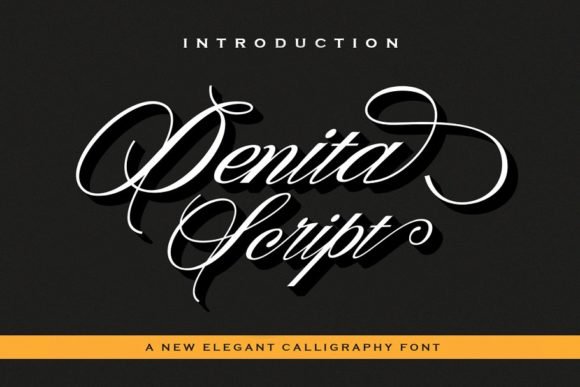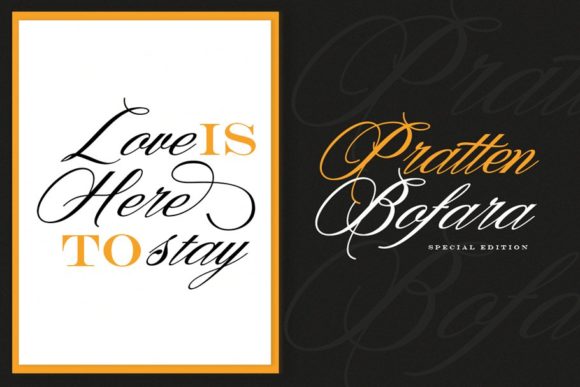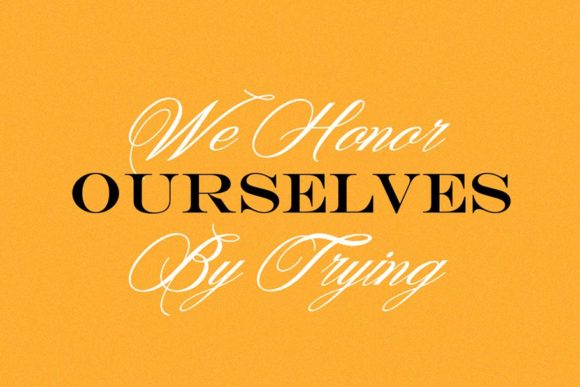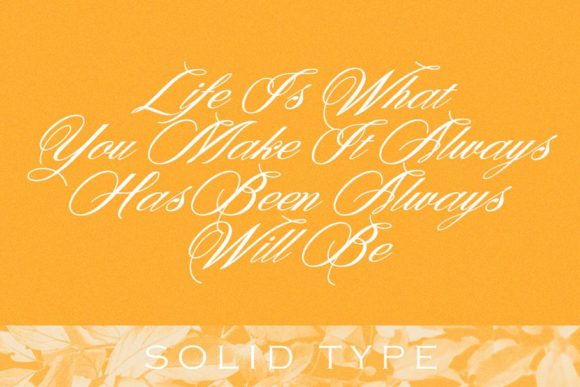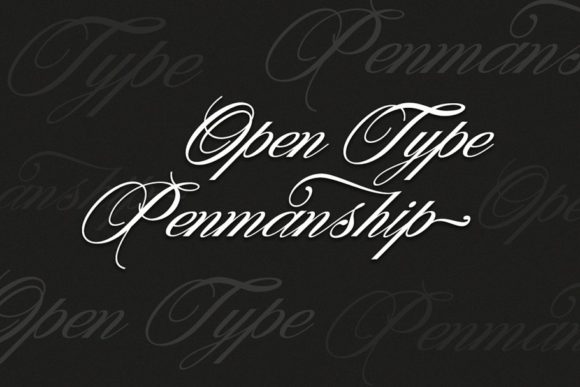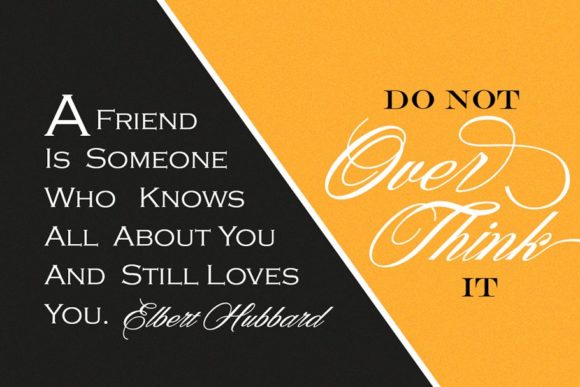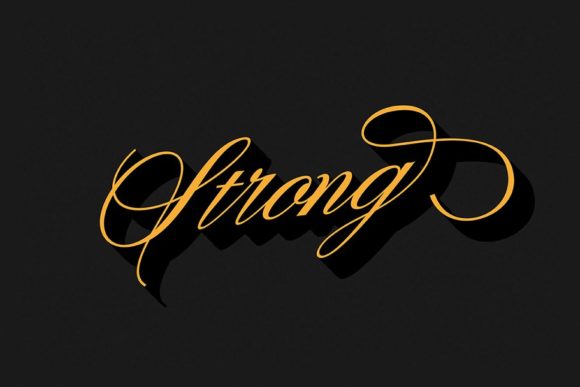
Adding a Touch of Elegance with the Denita Font
Have you ever stared at a blank canvas, struggling to bring your creative vision to life? You’re not alone. As designers, we’ve all been there – searching for the perfect font to set the tone for our project. It’s in these moments of uncertainty that we turn to trusted fonts that have proven themselves time and time again.
One such font is Denita, a beautifully crafted script that adds a sophisticated touch to any creative idea. Its elegant design makes it perfect for invitations, wedding stationery, and other high-end projects where a touch of class is essential. For designers, Denita Font is a valuable asset in their toolkit, providing a reliable solution for creating visually stunning designs that leave a lasting impression.
Denita Font Key Features
- Unique Characteristics: Elegant, cursive script with a touch of sophistication and luxury
- Font Style: Calligraphy, Script
- Language Support: Multilingual support, including Latin-based languages and some Cyrillic scripts
Designer Review: Denita Font
When I first laid eyes on the Denita font, I was immediately drawn to its elegant and sophisticated vibe. ✨ The letterforms are beautifully crafted, with a subtle flair to the strokes that gives the font a sense of movement. I can see this font working beautifully in high-end branding, luxury packaging, or even fine dining menus.
One of the things that really stands out about Denita is its excellent legibility. ✨ The font is highly readable even at small sizes, making it perfect for body text or captions. The font also has a nice range of weights, from light to bold, which makes it easy to use in a variety of design scenarios.
However, I do have a few concerns about the font’s limitations. ⚠️ One thing that I noticed is that the font may not be as suitable for digital use, particularly on screens with low resolution. The font’s delicate details may get lost or distorted, which could impact its overall appearance.
- May not be suitable for digital use, particularly on screens with low resolution
- Font may appear too delicate or refined for certain design scenarios
Overall, I think the Denita font is a beautiful and versatile choice for designers looking to add a touch of sophistication to their work. While it may have some limitations, I believe it’s definitely worth considering for the right project.
Getting the Most Out of Denita Font
Here are some tips for getting the most out of Denita Font:
- Use it for titles and headings to add a touch of elegance.
- Pair it with a sans-serif font for a modern and clean look.
Denita Font is commonly used for:
- Formal event invitations and announcements.
- Use the Denita Font for the menu item names and descriptions.
- Pair it with a clean, sans-serif font for the prices and other details.
- Use watercolor illustrations or hand-drawn graphics to add a whimsical touch.
- Choose a color palette that is bright and inviting, such as pastel colors or warm neutrals.
- Use the Denita Font for the title or tagline on the journal cover.
- Pair it with a bold, modern font for the author’s name or other details.
- Use high-quality paper textures or watercolor backgrounds to add depth and interest.
- Choose a color palette that is rich and muted, such as earthy tones or dark neutrals.
Alternatives to Denita Font for Designers
1. Arial Rounded
Arial Rounded is a sans-serif font that is similar to Denita Font in terms of its rounded edges and clean design. It is ideal for use in titles, headings, and body text where a friendly and approachable tone is desired.
Comparison to Denita Font: Arial Rounded has a more geometric and structured feel compared to Denita Font’s more rounded and fluid design. However, both fonts share a similar sans-serif aesthetic.
Open Sans is a modern sans-serif font that is highly legible and versatile. It is suitable for use in a wide range of applications, from body text to titles and headings.
Comparison to Denita Font: Open Sans has a more minimalist and clean design compared to Denita Font’s more rounded and elegant feel. However, both fonts share a similar level of readability and are suitable for use in digital applications.